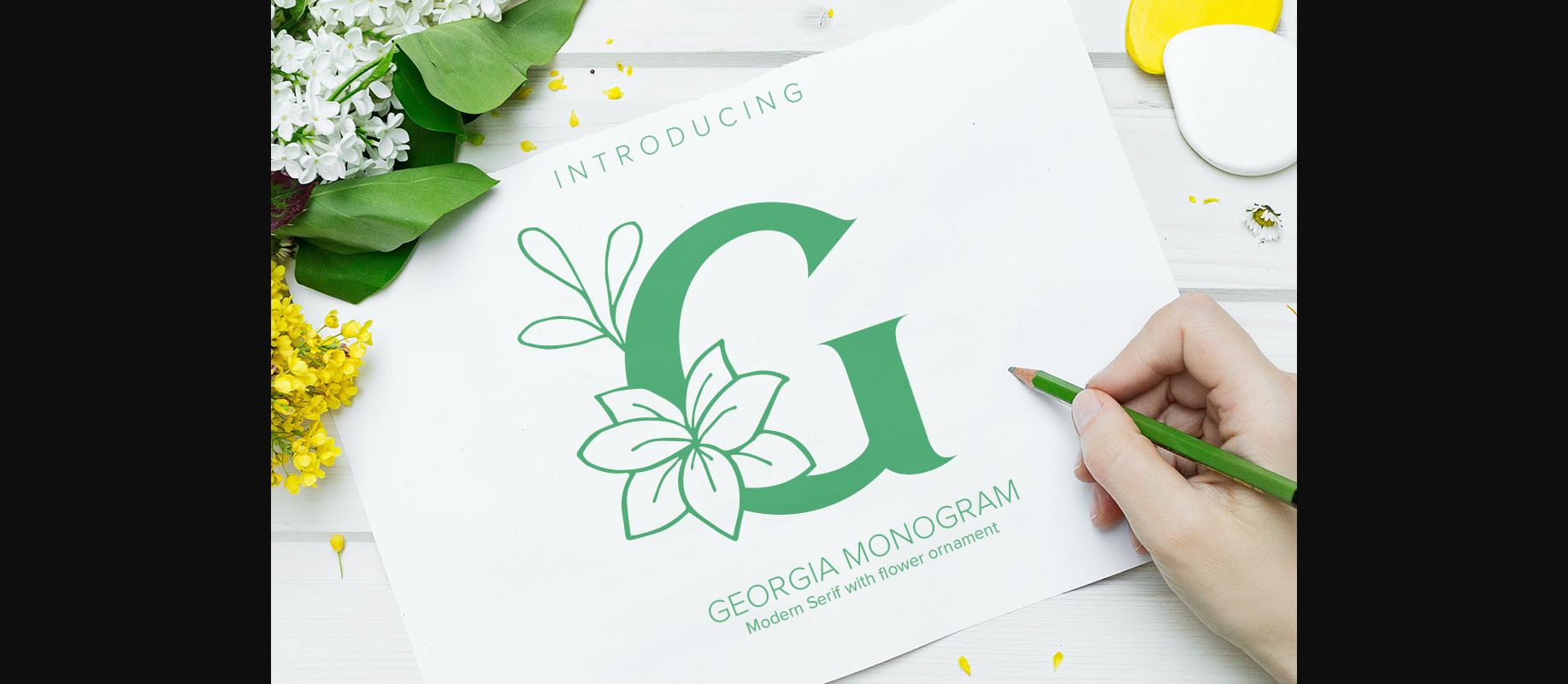
About Georgia Monogram Font
Georgia Monogram is a fresh and lovely decorative font. Fall in love with its authentic feel and use it to create gorgeous wedding invitations, beautiful stationary art, eye-catching social media posts, and cute greeting cards.